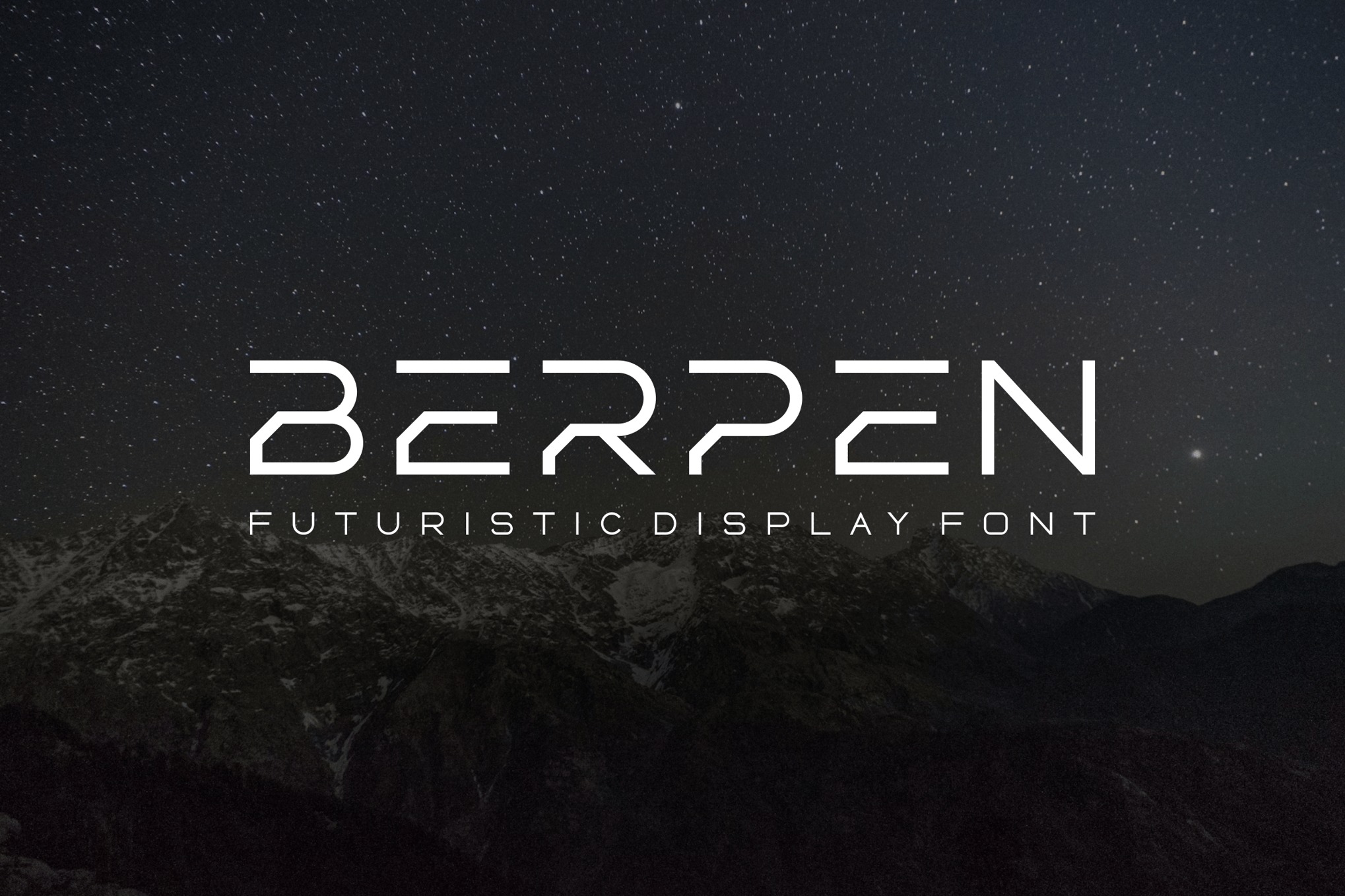
Berpen Font
Berpen Font is a premium-quality font developed to enhance your work with a polished, modern, and visually elevated look. Berpen – Futuristic Display Font is a regular and authentic display font. The font is suitable for any branding project like logo, esport, and many more. outstanding in a wide range of contexts.